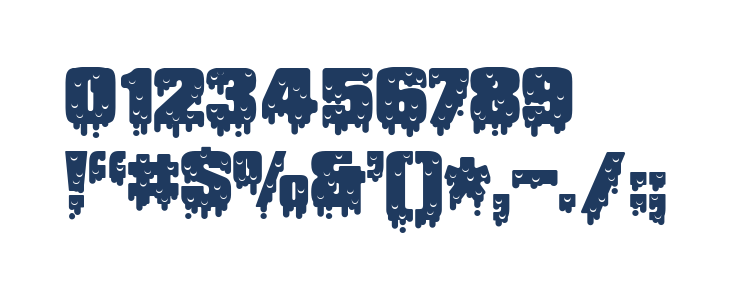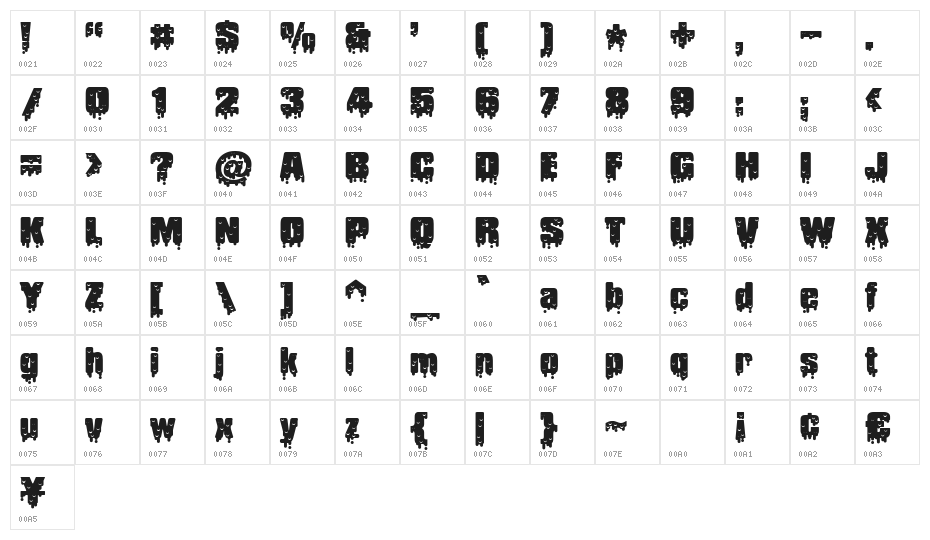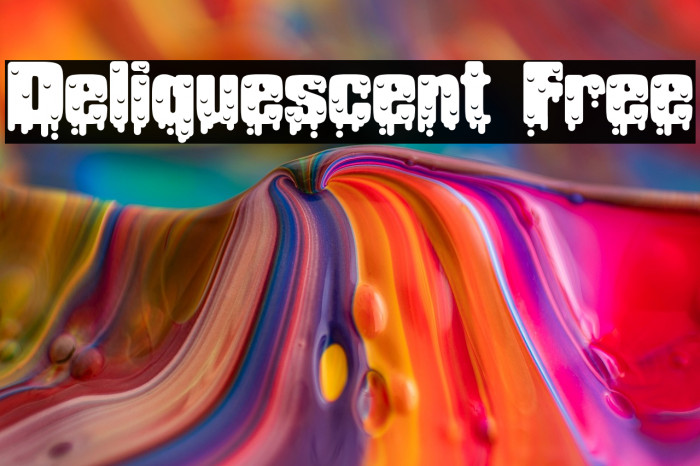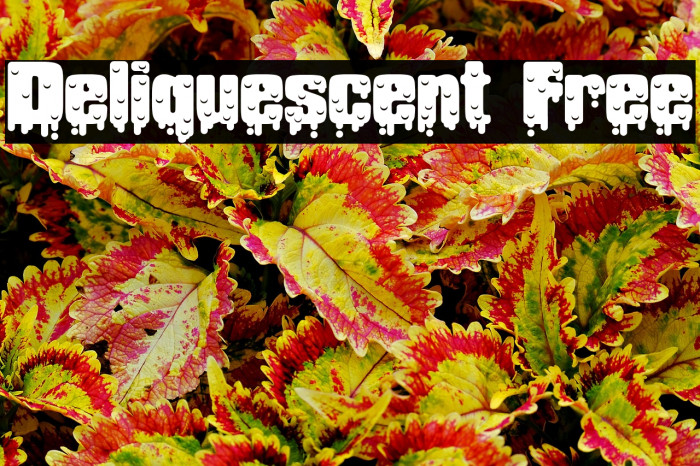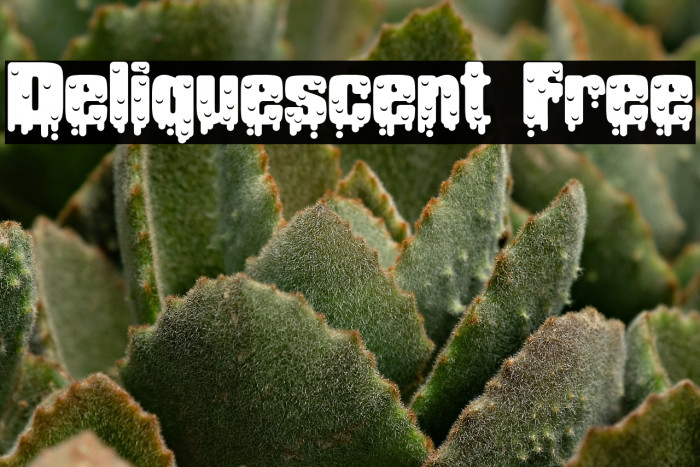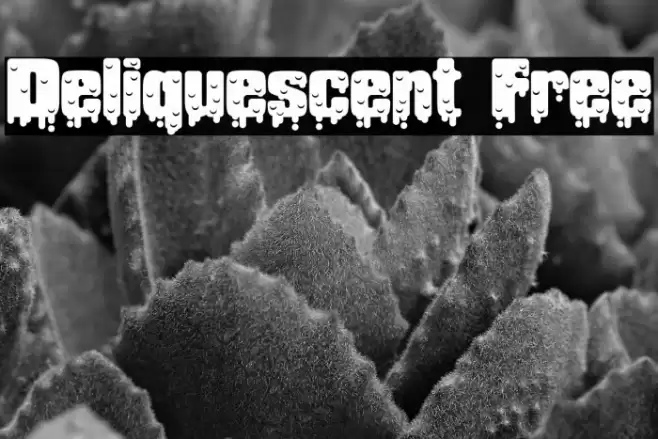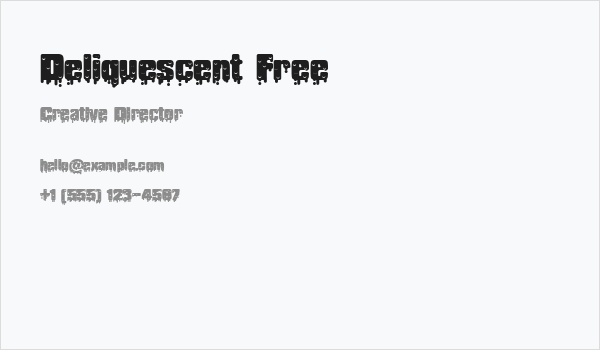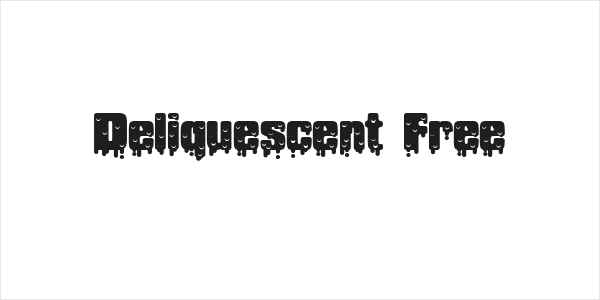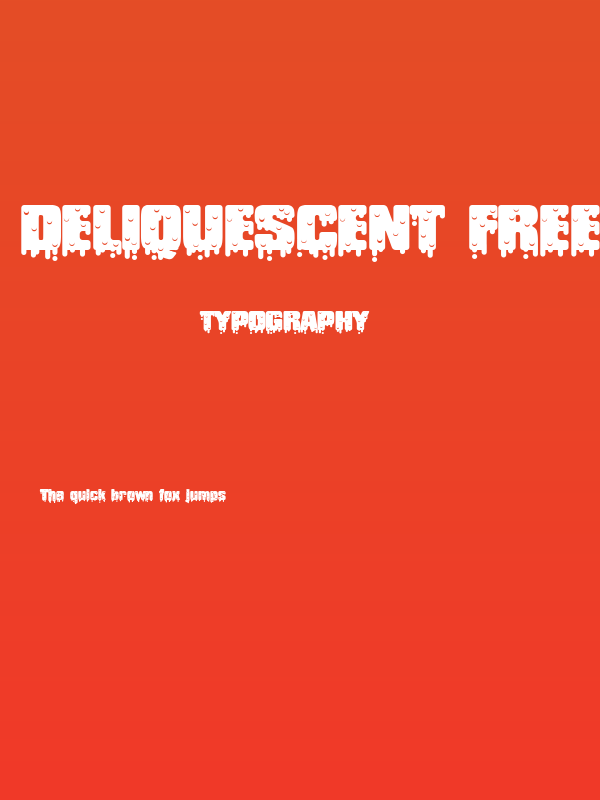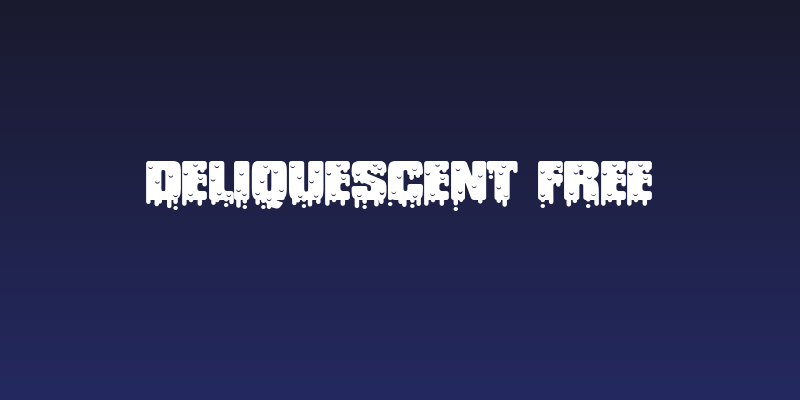
Deliquescent Free Font
Deliquescent Free Description
This font features a unique and eye-catching design with a dripping effect that resembles melting liquid or paint. The characters are bold and heavily stylized, with each letter appearing as if it is oozing or dripping downwards. This creates a dynamic and somewhat chaotic appearance, making it ideal for projects that require a dramatic and unconventional look. The font maintains a consistent thickness throughout, contributing to its bold presence. The overall aesthetic is playful yet edgy, making it suitable for creative and artistic applications.
| Use Case | Headlines, Posters, Logos |
| Proposed Projects | Ideal for Halloween-themed designs, horror movie posters, edgy branding, or any creative project requiring a dramatic and unconventional font. |